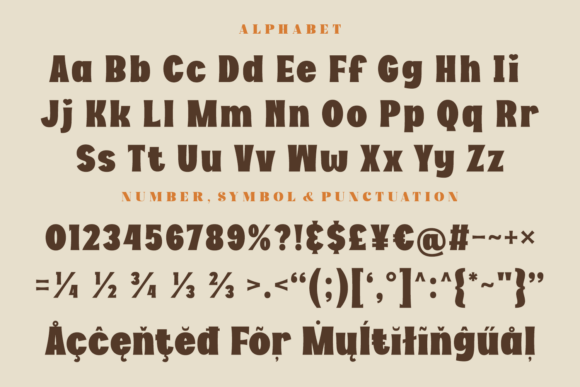
Thick Boots Font
Unleash your creativity with the “Thick Boots Font” and dive into an avant-garde typography journey. Discover its audacious and unrefined aesthetic, reminiscent of the untamed spirit of the Wild West, merging a cowboy’s rugged charisma with the refinement of cutting-edge calligraphy. The font family delivers a broad spectrum of styles, stretching from homely country motif to nostalgic western retro. Overflowing with charm, it features a bicolor font mixing an uninterrupted synergy of filled and lined typefaces. It also boasts a flavorful selection of alphabetic designs, bringing together robust rodeo and cowboy characters with a charming country dynamic. Ideal for digital arts and crafts and scrapbooking endeavors, it integrates seamlessly into your Cricut or Silhouette ventures. The Thick Boots Western Font also stakes its claim as a favored pick for Procreate, underlining its adaptable nature. Catering to the SVG font enthusiasts, this comprehensive font family houses SVG rodeo, cowboy, country, and western styles. To boost its robust characteristics, it also offers SVG alphabets, and Cricut and Silhouette cut files. Experiment with its application in event signage, or bring genuineness to your t-shirt designs. Crafted for a variety of branding applications, its chiseled lines are a match made in heaven for western-inspired ventures – may it be a rustic wedding invite or a Texas-themed farmhouse decoration. Explore the genuine frontier charm embedded in each character and produce standout designs with this versatile wonder, the Thick Boots Western Font.